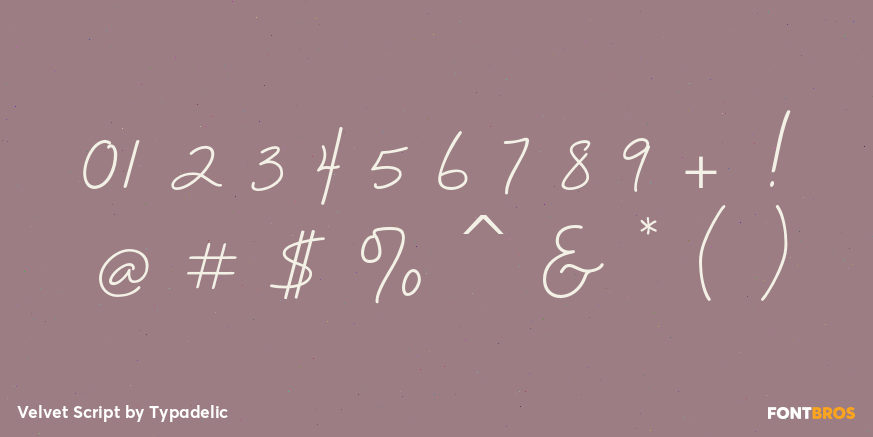
Velvet Script
Font Family by Typadelic
Velvet Script is a pretty handwriting typeface that is smooth and feminine. You'll find an alternate "r" and "s" (Option 9 and Option 10 on the keyboard) that have a beginning stroke to achieve a finished look. Try it and see for yourself.